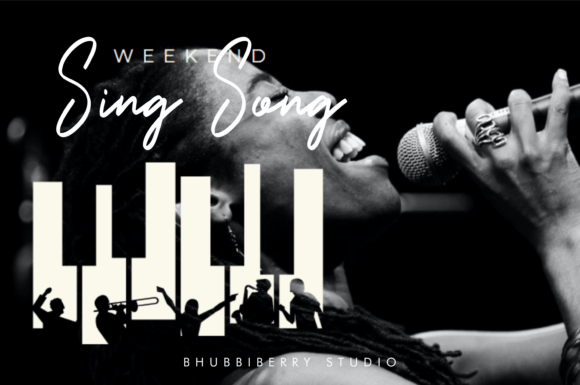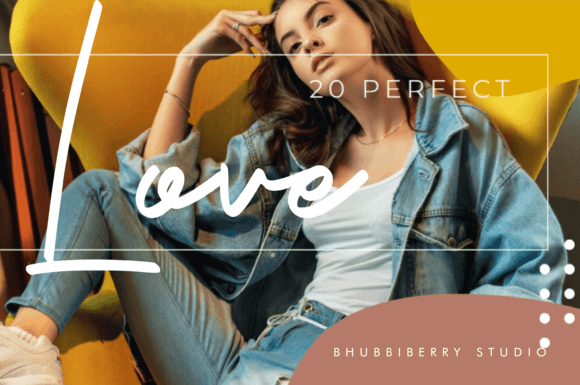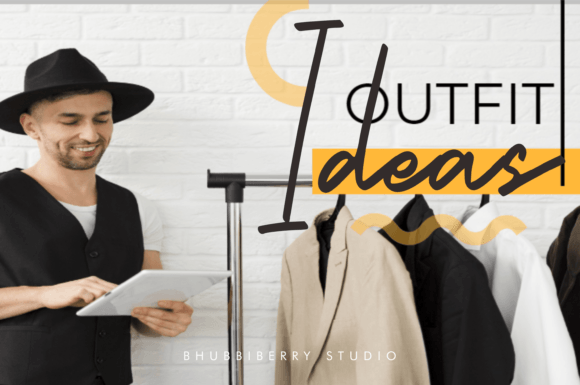
Introduction to Shaquel Lavigne Font
Shaquel Lavigne is a Handwritten Script Font.
Shaquel Lavigne is perfect for Product packaging, Branding projects, magazines, Social media, or just used to express words above the background .
Shaquel Lavigne Font offers exceptional quality and versatility, making it a valuable addition to your design toolkit. Whether you’re creating for personal projects or commercial use, Shaquel Lavigne Font delivers professional results.